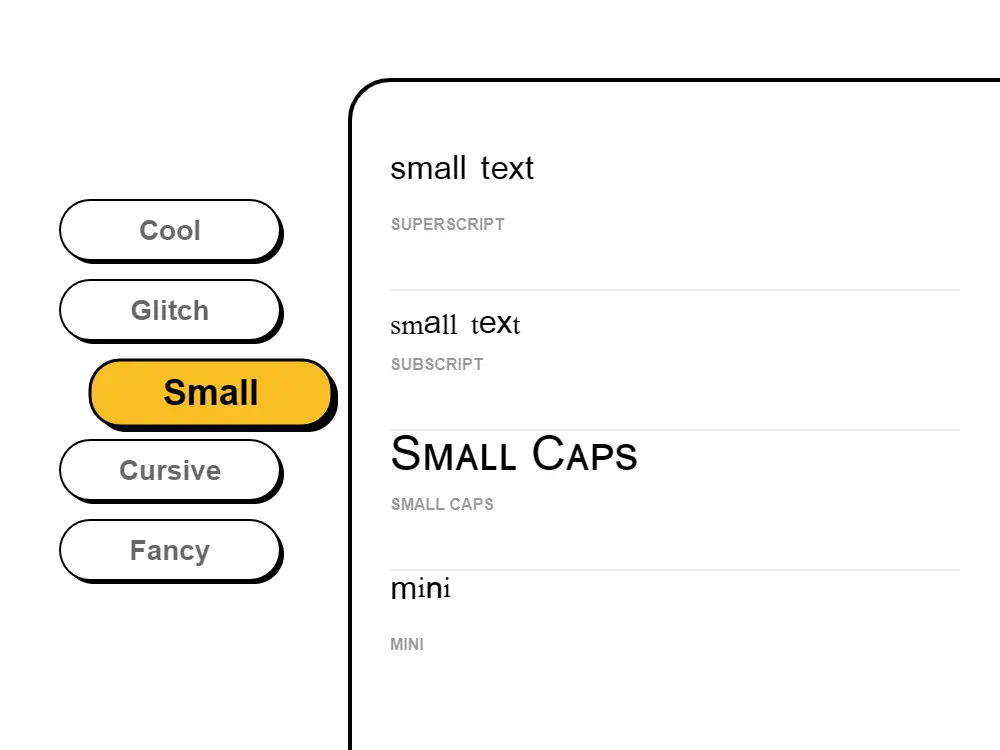
Tiny subscript, superscript, and miniature Unicode text for unique bios and creative posts. Copy and paste small fonts anywhere.
Our small text generator creates tiny text, mini fonts, and small caps you can copy and paste anywhere — Instagram bios, TikTok usernames, Discord server names, Twitter display names, and WhatsApp statuses. Type your text, choose a small font style, and copy paste your tiny text in one click. Free, instant, and unlimited. What makes a tiny text generator different from just using a smaller font size? Small text uses real Unicode superscript, subscript, and small caps characters — ᵃ ᵇ ᶜ ᵈ ᵉ — that are built into every device. Your small text copy and paste keeps its miniature appearance everywhere it lands. No special app or font file required. Tiny text copy and paste works the same on iPhone and Android. Our mini font generator offers three main styles: superscript text (ˢᵘᵖᵉʳˢᶜʳⁱᵖᵗ), subscript text (ₛᵤᵦₛ꜀ᵣᵢₚₜ), and small caps (ꜱᴍᴀʟʟ ᴄᴀᴘꜱ). Each creates a different miniature look — from elegant and sophisticated to subtle and whisper-quiet. Whether you need small text for an Instagram bio, a tiny font for a Discord username, or mini text to copy and paste into a TikTok caption — every style is free. The best small text generator for unique, space-saving, and creative content online.
Small text — also called tiny text, mini text, or superscript text — creates a distinctive visual effect that makes your content stand out in any feed. Whether it's a subtle ˢᵘᵖᵉʳˢᶜʳⁱᵖᵗ bio on Instagram, a tiny-text username on Discord, a mini font for TikTok, or a small caps effect for Twitter — our small text generator creates every style instantly. Type anything, copy the tiny text, and paste it anywhere. Free, unlimited, and no sign-up required.
Small text fonts use Unicode mathematical and phonetic characters to simulate tiny lettering — which means your tiny text copy and paste works correctly anywhere Unicode is supported: Instagram bios, TikTok usernames, Twitter display names, Discord server names, Reddit posts, WhatsApp statuses, and more. The resulting small text is actual Unicode characters, not images, so they travel with your content and display correctly on iPhone, Android, Windows, and Mac without any special app or font file.
How to Use the Small Text Generator
1. Type or paste your text into the input box above — all tiny text and small font styles update in real time as you type.
2. Browse the small text styles: superscript (ˢᵐᵃˡˡ), subscript (ₛₘₐₗₗ), small caps (ꜱᴍᴀʟʟ), and more mini font variations.
5. Your small text appears exactly as it looked in the generator — miniature, styled, and fully compatible on every device.
Why Does Tiny Text Copy and Paste Work Everywhere?
Tiny text copy and paste works on every platform because small fonts are real Unicode characters — not shrunken images, CSS font-size tricks, or special formatting codes. Unicode is the universal character standard built into every operating system. Within Unicode, there are complete sets of superscript letters, subscript numbers, and small capitals that look like miniature versions of normal letters. These characters exist at the system level on every iPhone, Android phone, Windows PC, and Mac. When you copy small text from this generator and paste it into Instagram, TikTok, Discord, or any other app, the platform simply displays the Unicode character it receives — tiny, styled, and exactly as intended. No font file is needed. No plugin is required. The small appearance is part of the character itself, which is why tiny text copy and paste works consistently everywhere without any setup.
What is a small text generator and how does it work?
A small text generator converts your regular text into tiny Unicode characters — superscript, subscript, and small caps — that look miniature compared to normal text. Our small text generator maps each letter to its corresponding Unicode tiny character, creating tiny text you can copy and paste into Instagram bios, TikTok usernames, Discord server names, Twitter display names, and any platform that supports Unicode. No app or download needed.
How do I copy and paste tiny text?
To copy and paste tiny text: type your text in the small text generator above, browse the styles (superscript, subscript, small caps), and click Copy. Then open Instagram, TikTok, Discord, Twitter, WhatsApp, or any other app and paste. Your tiny text copy and paste appears exactly as it looked in the generator — miniature and styled on every device.
What types of small text can I generate?
Our small text generator offers three main styles: superscript text (ˢᵘᵖᵉʳˢᶜʳⁱᵖᵗ) for a raised, whisper-like effect; subscript text (ₛᵤᵦₛ꜀ᵣᵢₚₜ) for a lowered, footnote-style look; and small caps (ꜱᴍᴀʟʟ ᴄᴀᴘꜱ) for an elegant, formal miniature appearance. All styles are free to copy and paste.
Does tiny text copy and paste work on Instagram, TikTok, and Discord?
Yes! Tiny text copy and paste works everywhere: Instagram bios, captions, and usernames; TikTok bios and comments; Discord server names, channel names, and messages; Twitter/X display names and bios; WhatsApp statuses; Facebook posts; and any platform that renders Unicode text. Small text copy and paste works on both iPhone and Android — no special app needed.
What's the difference between superscript, subscript, and small caps?
Superscript text (ˢᵘᵖᵉʳˢᶜʳⁱᵖᵗ) sits slightly above the baseline — great for whisper effects and creative bios. Subscript text (ₛᵤᵦₛ꜀ᵣᵢₚₜ) sits slightly below the baseline — popular for footnote-style accents. Small caps (ꜱᴍᴀʟʟ ᴄᴀᴘꜱ) are full-height but narrow capital-style letters — ideal for elegant, sophisticated content. All three are free to copy and paste.
Why does small text sometimes appear as boxes on some devices?
Small text boxes (□ or ▯) appear when a device's system font doesn't include a particular Unicode character. This most often affects older Android phones or uncommon superscript/subscript characters. To minimize boxes: use the more widely supported superscript and small caps styles, test on your target platform before posting, and note that most modern iPhones, Android phones (Android 8+), and desktop browsers display all small text styles correctly.